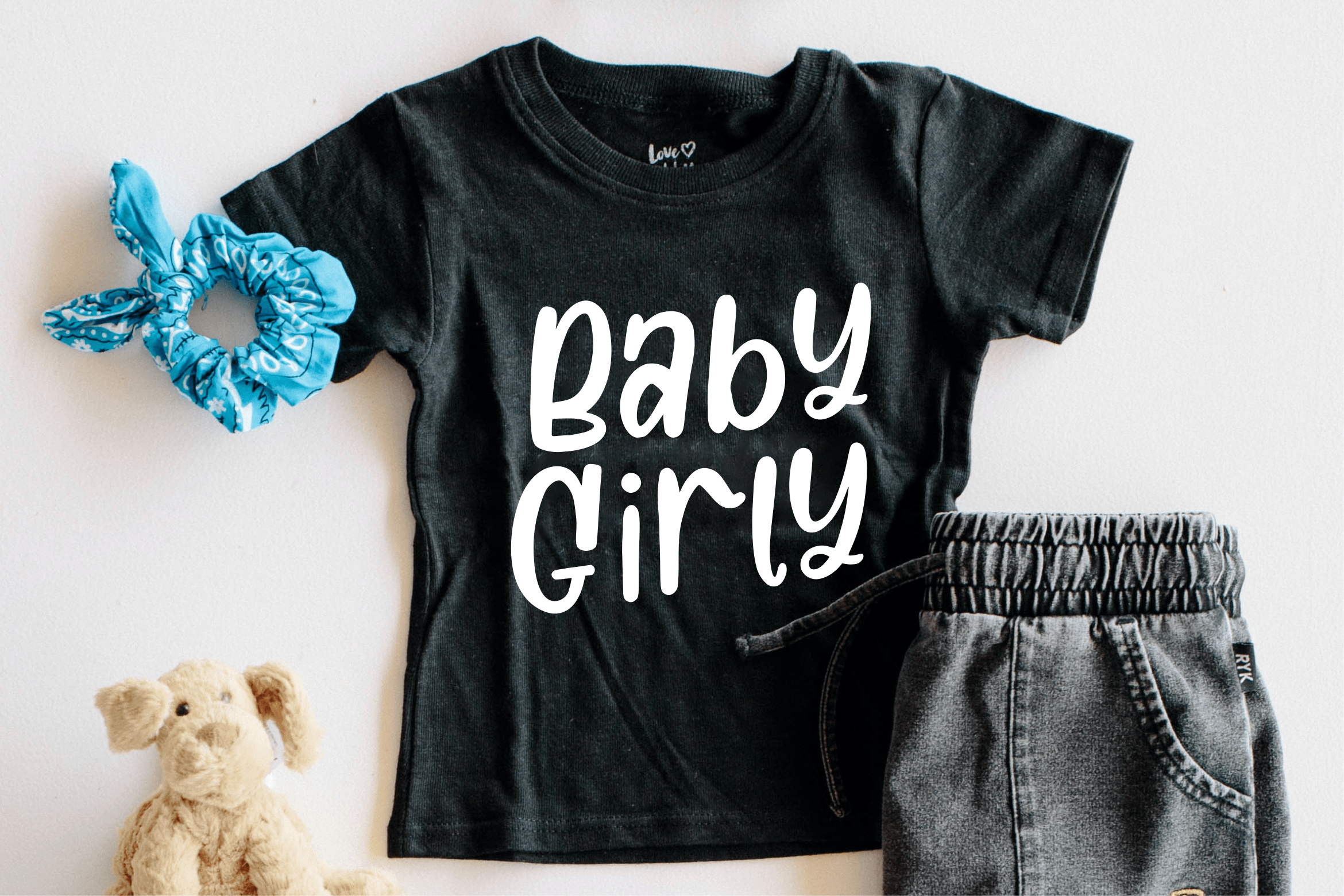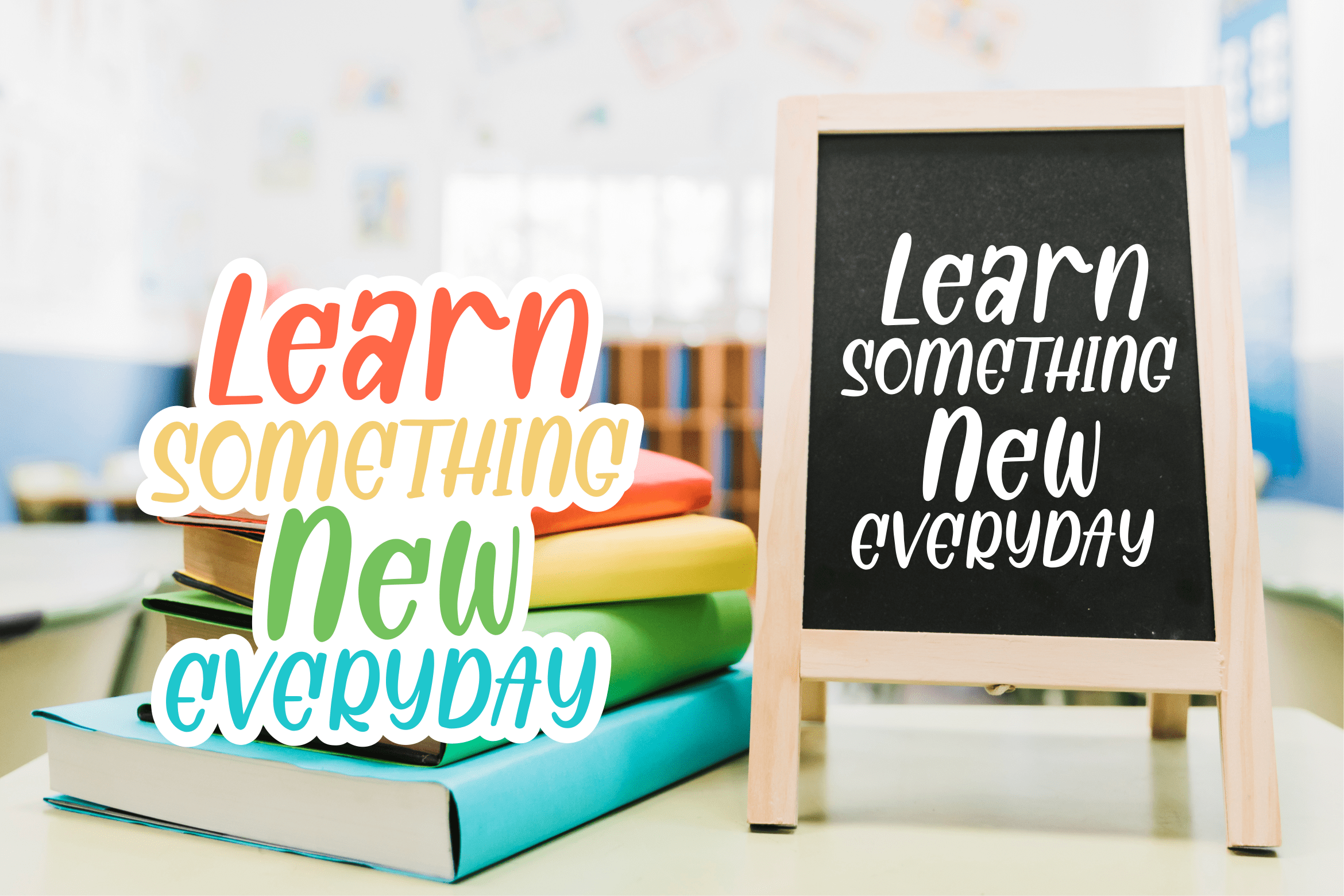
Loopglasy Display Font
This is a bold display font perfect for product packaging, branding project, magazines, social media posts, T-shirts, and clothing design, or you can use it to express yourself with its beautifully crafted characters!